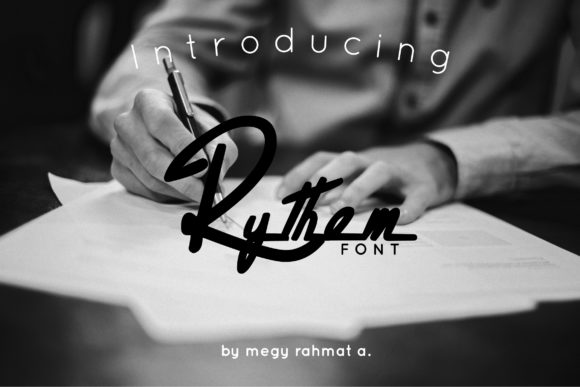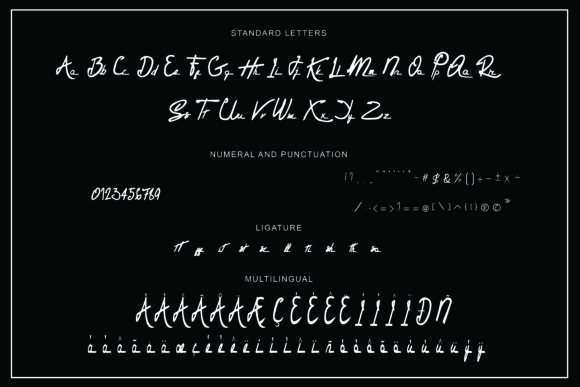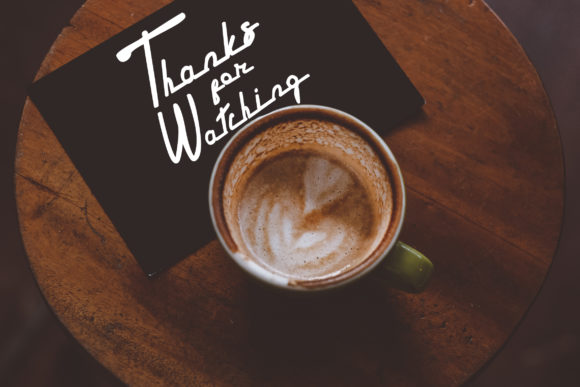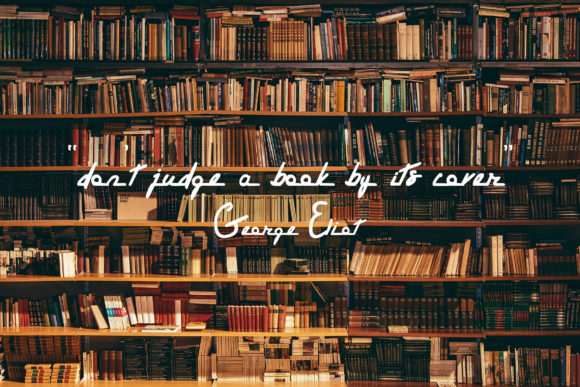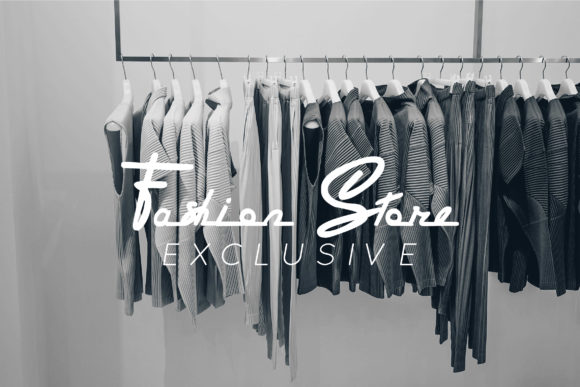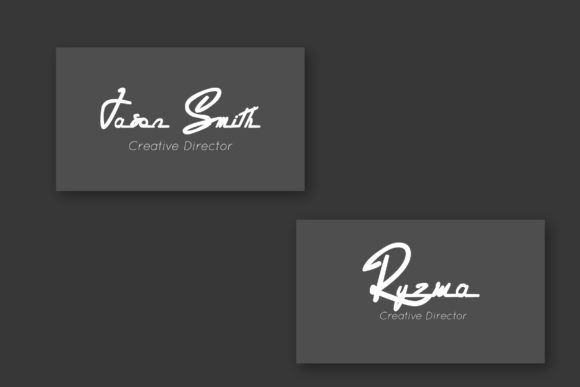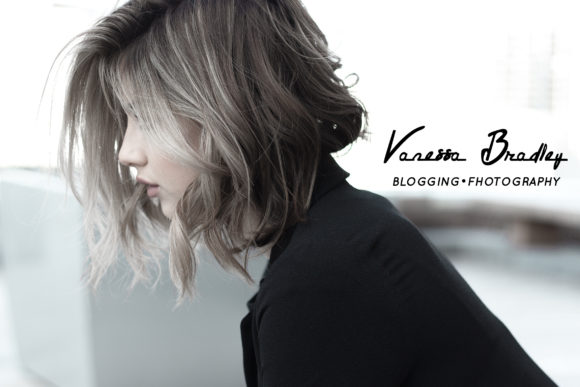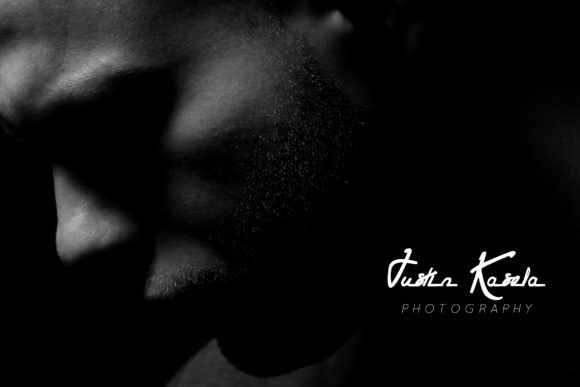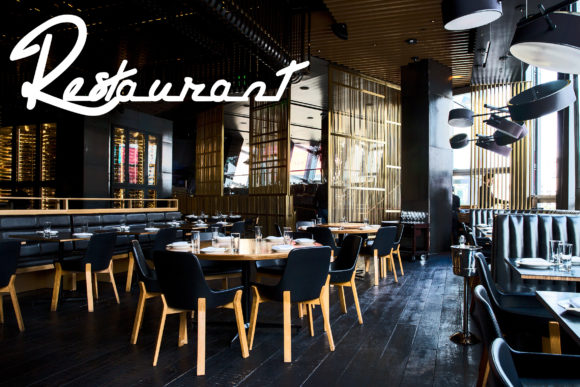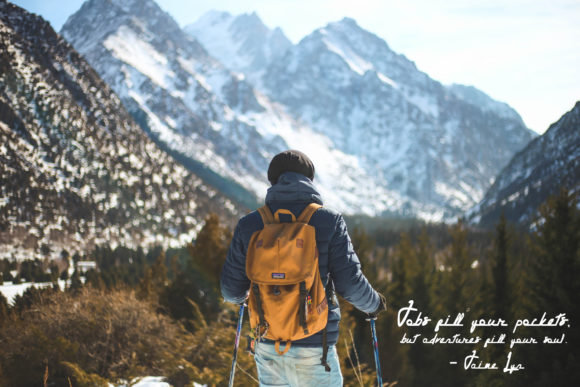
Rythem Font
About Rythem Font
The Rythem is a stylish signature font. It has a bold, simple, yet modern style and will add an elegant feel to your designs.